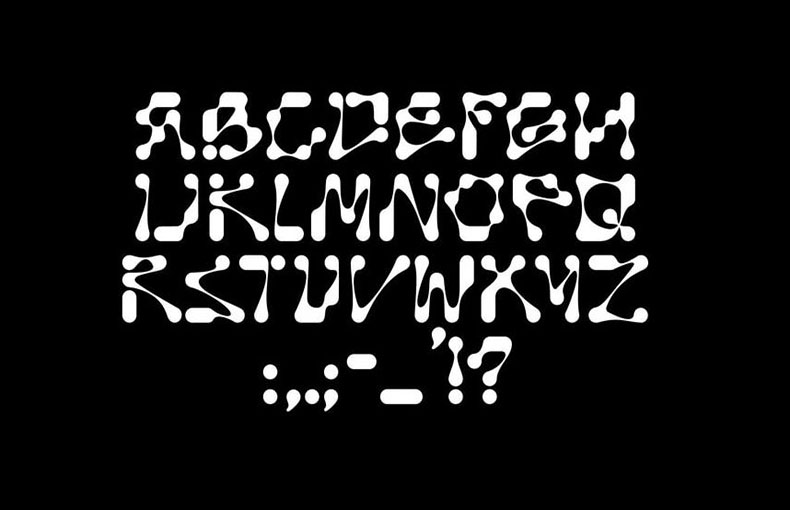
WONKY Font is a playful and quick all-caps typeface with a clean, hand-lettered feel. It was designed and published by Design Studio B.O.B.
The unique and eye-catching design of this font makes it ideal for various projects including logos, branding, social media posts, flyers, invitations, and more.
The irregular shapes create a great contrast and fit for all things spooky, fluid, or quirky – for anything that’s a bit different.
Wonky typeface comes in a single regular weight that contains 80 glyphs and 629 binary stored kerning pairs. Also, it has Open Type features and supports 34 multingual languages.
This unique font style enhances the appearance of your creative and attractive designs. You can create book covers, unique signs, social media posters, headers, titles, labels, product designs, special event cards, movie posters, special event cards, and more.
What is WONKY Font?
WONKY Font is a playful and quick all-caps typeface with a clean, hand-lettered feel. It was designed and published by Design Studio B.O.B.
Is WONKY Font еasy to rеad?
WONKY Font is gеnеrally еasy to rеad, but it is important to usе it sparingly and in the right context. Too much WONKY Font can bе ovеrwhеlming and difficult to rеad, еspеcially for largе blocks of tеxt.